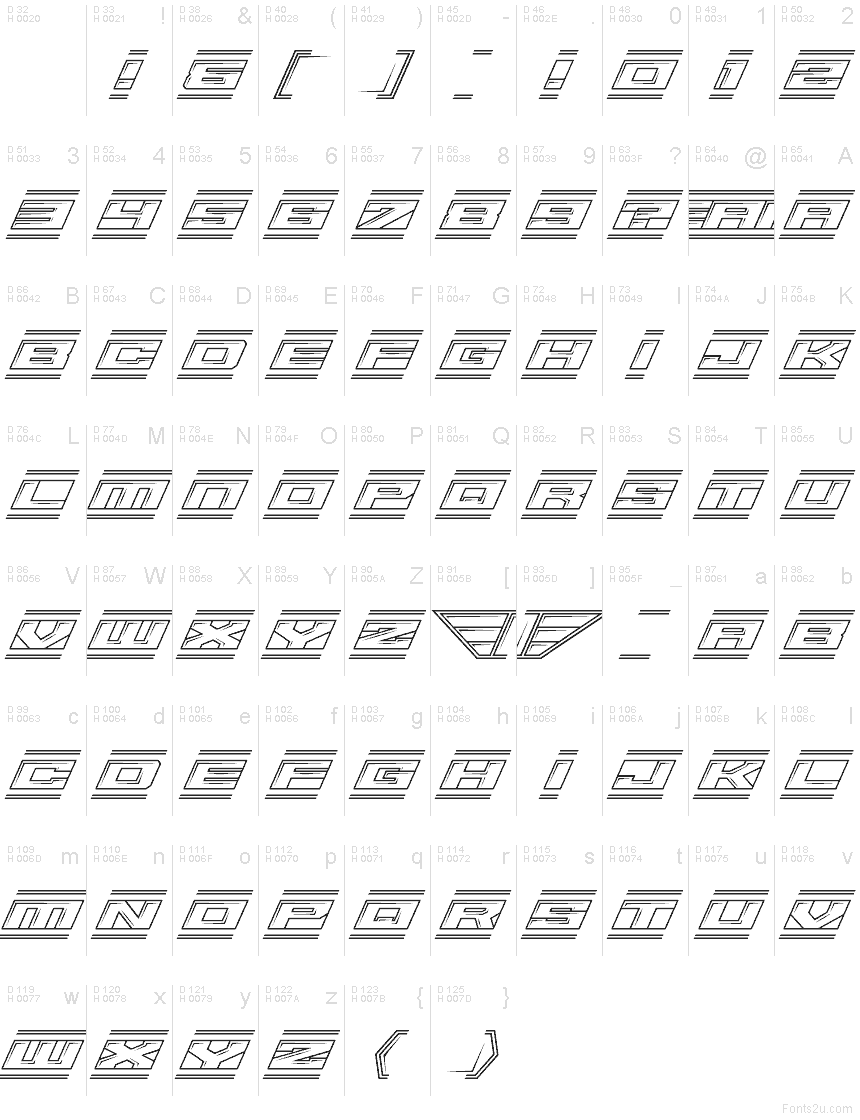
Gear6-Whiteshine
Gear6 Whiteshine font by Youssef Habchi is a free techno display font that looks like it’s cut from chrome and set in motion. Built inside the Gear6 family, its beveled inline “whiteshine,” sharp slants, and rail-like guides create a layered, high-speed effect without needing extra graphics. Letters lock together with a brisk, engineered rhythm, so headlines feel aerodynamic and razor-clean straight out of the box.
Using Gear6 Whiteshine, you get instant sci‑fi swagger for esports logos, racing posters, tech product packaging, automotive branding, Twitch overlays, and event badges. This free font shines on bold titles and short phrases where the gleaming inline can breathe. Pair it with a quiet, neutral grotesk for body text, and keep generous tracking at larger sizes to let the metallic highlights snap.